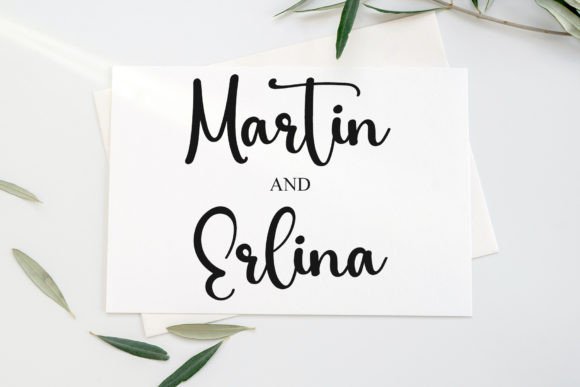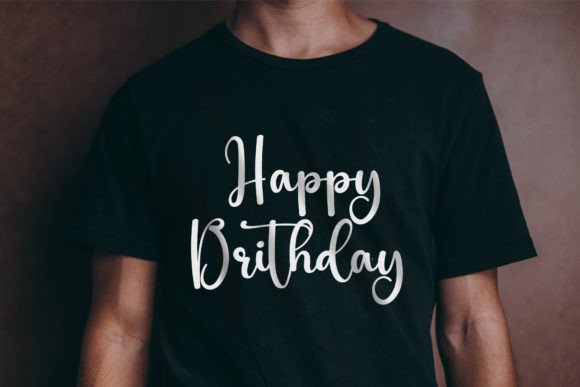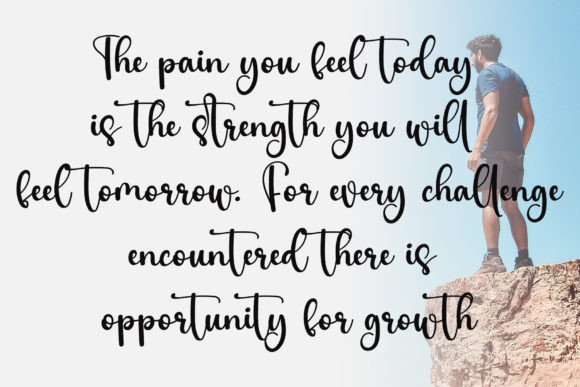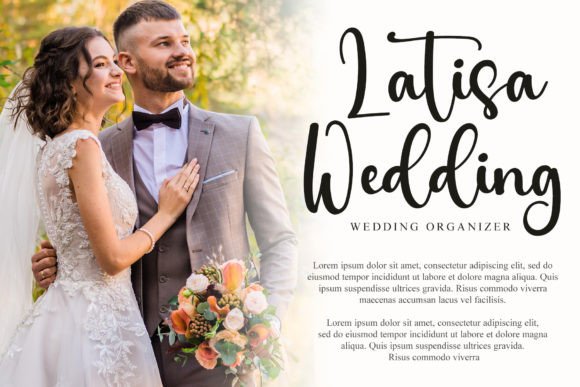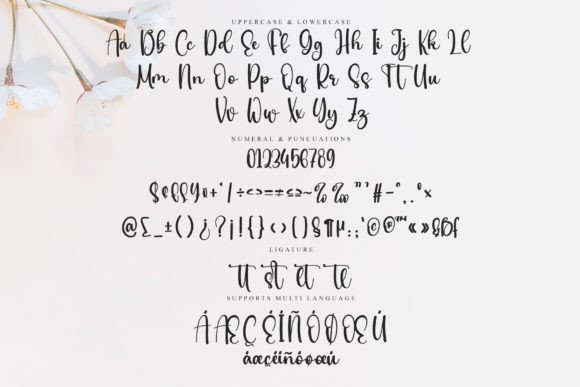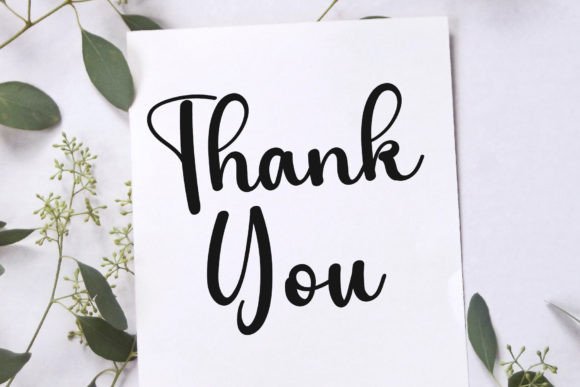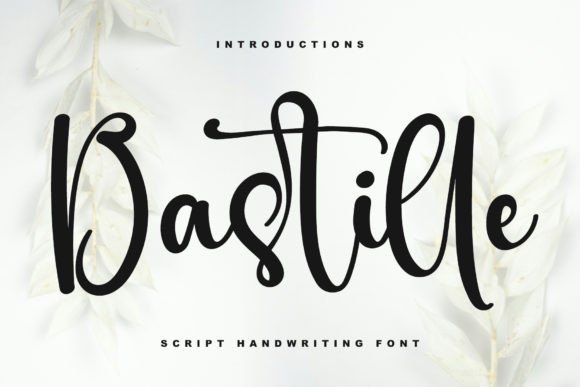
Bastille Font: Elevate Your Designs with a Stylish and Modern Handwritten Touch
Are you tired of using the same old fonts in your designs? Look no further than the Bastille Font, a stylish and modern handwritten font that’s perfect for a wide range of applications. From greeting cards to headlines, branding, and packaging, this font is sure to add a touch of elegance and sophistication to your creations.
What Makes Bastille Font So Special?
Bastille Font is a beautifully crafted handwritten font that’s designed to make your designs stand out. Its unique and stylish lettering is perfect for anyone looking to add a personal touch to their work. Whether you’re a designer, crafter, or DIY enthusiast, this font is sure to inspire your creativity and take your designs to the next level.
One of the best things about Bastille Font is its versatility. This font can be used for a wide range of applications, including:
- Greeting cards and invitations: Add a personal touch to your cards and invitations with Bastille Font’s elegant and stylish lettering.
- Headlines and titles: Make your headlines and titles stand out with this font’s unique and eye-catching design.
- Branding and packaging: Use Bastille Font to create a cohesive and stylish brand identity that will set you apart from the competition.
- Digital and print media: This font is perfect for use in digital and print media, including brochures, flyers, and social media graphics.
PUA Encoded for Easy Use
Bastille Font is PUA (Private Use Area) encoded, which means that you can access all of the amazing glyphs and ligatures with ease. This makes it simple to use the font in your designs, even if you’re not a professional typographer. With PUA encoding, you can:
- Access a wide range of glyphs and ligatures to add variety and interest to your designs.
- Save time and effort by having all of the font’s features at your fingertips.
Why Choose Bastille Font?
So why choose Bastille Font over other fonts on the market? Here are just a few reasons:
- Unique and stylish design: Bastille Font is a one-of-a-kind font that’s sure to make your designs stand out.
- Versatility: This font can be used for a wide range of applications, making it a great addition to any designer’s toolkit.
- Easy to use: With PUA encoding, Bastille Font is simple to use, even for those with limited typography experience.
- High-quality: This font is designed to deliver high-quality results, with crisp and clear lettering that’s perfect for both digital and print applications.
Tips for Using Bastille Font
Here are a few tips for getting the most out of Bastille Font:
- Experiment with different sizes and colors to find the perfect look for your design.
- Use the font’s glyphs and ligatures to add interest and variety to your designs.
- Pair Bastille Font with other fonts to create a unique and eye-catching design.
- Don’t be afraid to get creative and try new things – Bastille Font is designed to inspire your creativity!